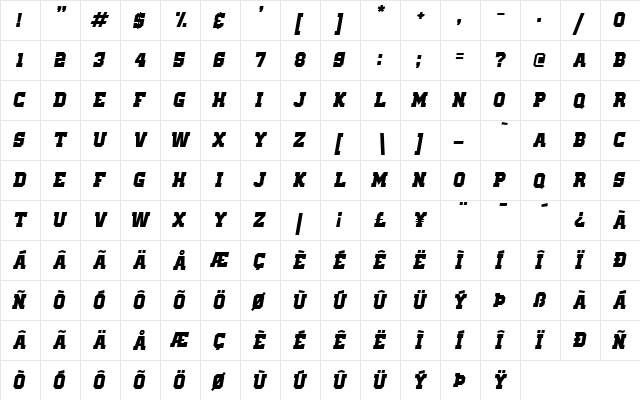
Old School United Italic
| Foundry | Fr餩ric Rich |
| Designer | Fr餩ric Rich |
Design Context for Old School United Typeface
Old School United is a composed and adaptable typeface that performs quietly and consistently across a wide range of design contexts. Its italic angle brings a sense of urgency and motion to the letterforms.
Pro Tip: Try Old School United for annotation and caption copy alongside an upright companion — the contrast in angle creates a dynamic but ordered typographic system.